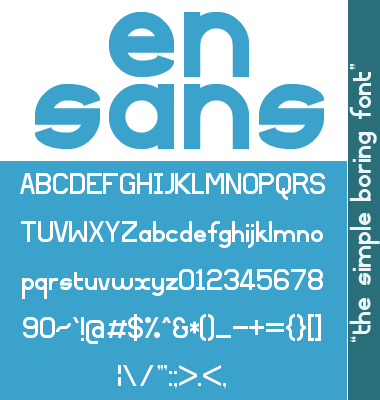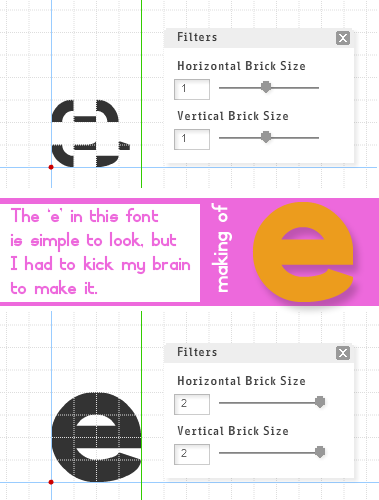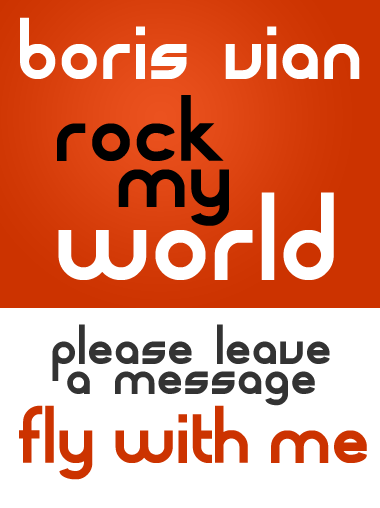
Good, good work! I'm looking how every time you present here more and more excellent fonts! Please, se also my "zarcs eYe/FS" (http://fontstruct.com/fontstructions/show/387728) and my "zkandia eYe/FS" (http://fontstruct.com/fontstructions/show/390644). I think both have some interesting for your font glyphs. See you in SF.
@elmoyenique:
I had a look at "zarcs eYe/FS" and
"zkandia eYe/FS". Those were simply good looking. I could find some similarities between "en sans" and those. But it seems I had taken a difficult route to make this. I wanted to make a totally circular 'o'. So I made use of the four macaroni bricks. When it came to fonstruction of 'c', I had to make use of compositions to make its right half look circular. It was like solving a puzzle. I used the same idea for e and s. Also I tried my best to create uniform thickness (even at different angles). At last I am happy for making this one.
This is FS! And you can always improve something you thought had no solution, there are very good people watching what we do, you know. They are always helpful. Keep on running!
WOW very smart use of filter love this e.
I clone it an play around. here is a a derivation of your work. I will never publish it because it's your font and your idea. but I had fun playing around. thank